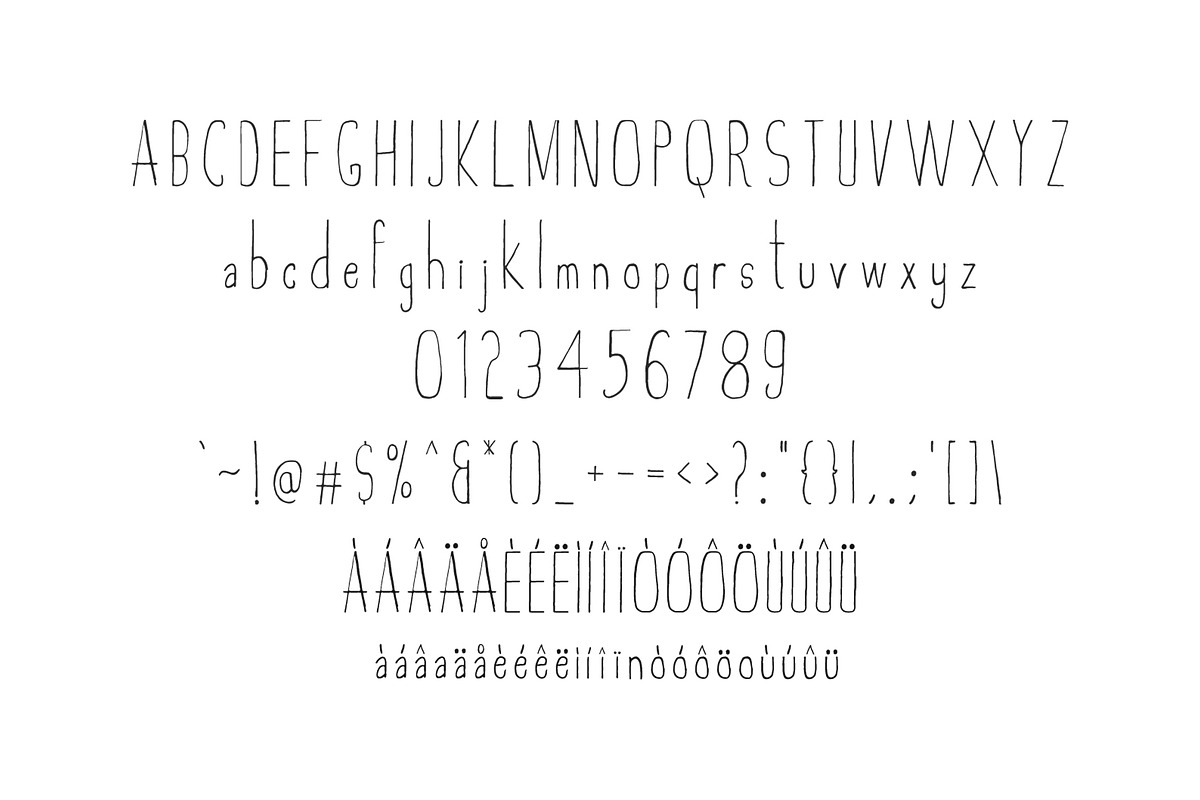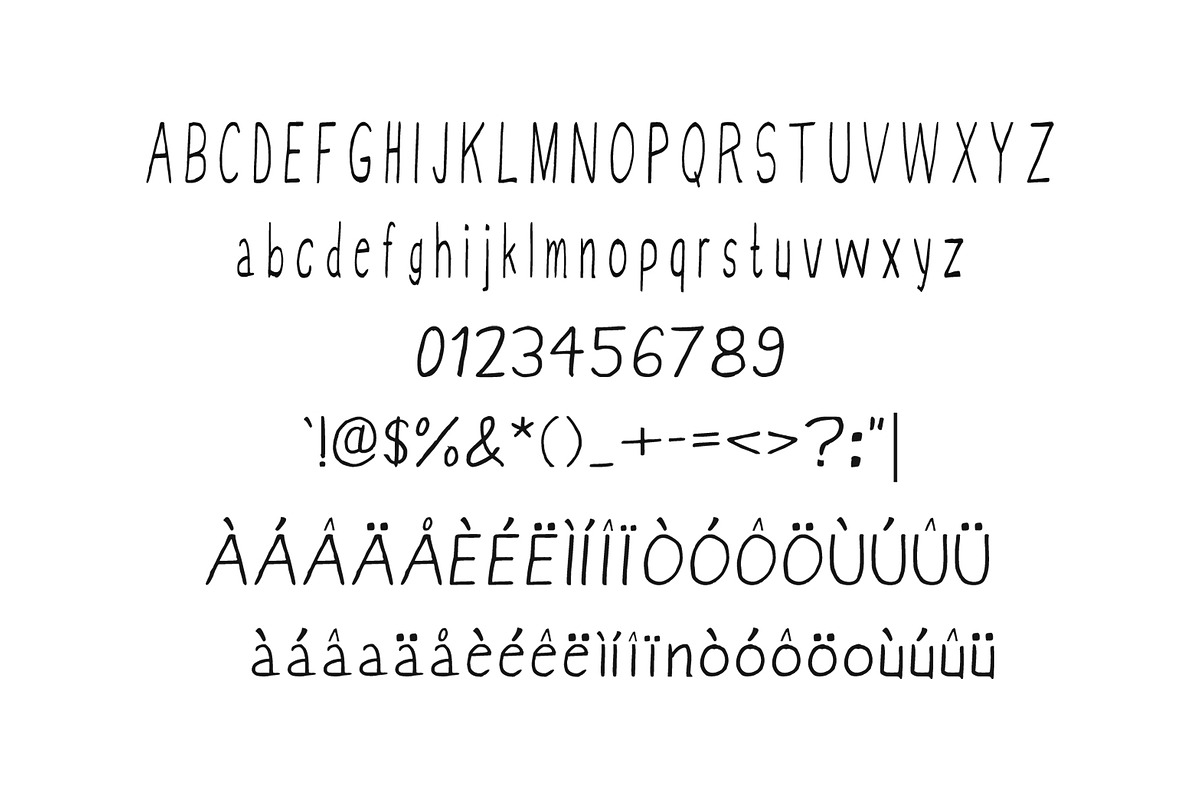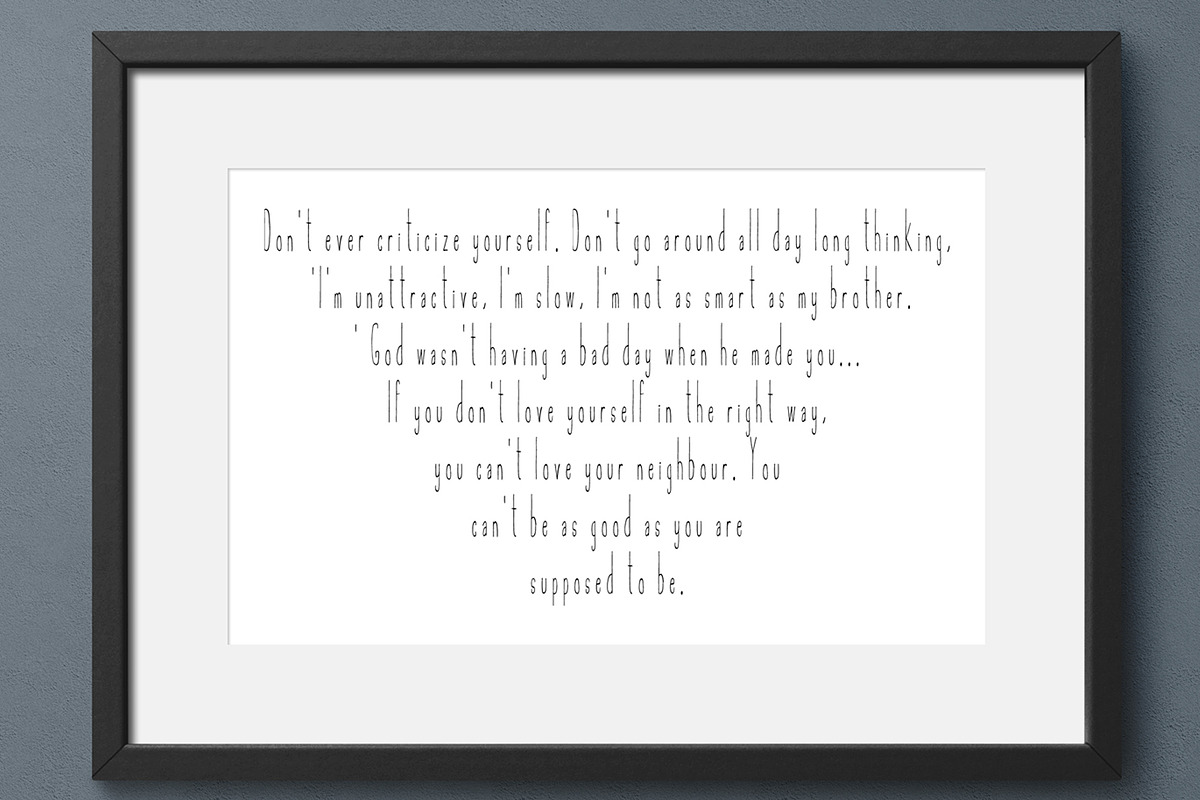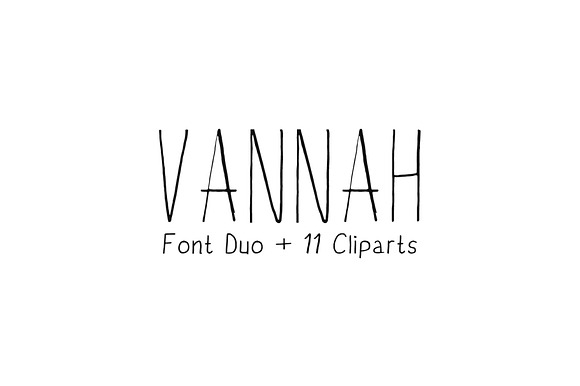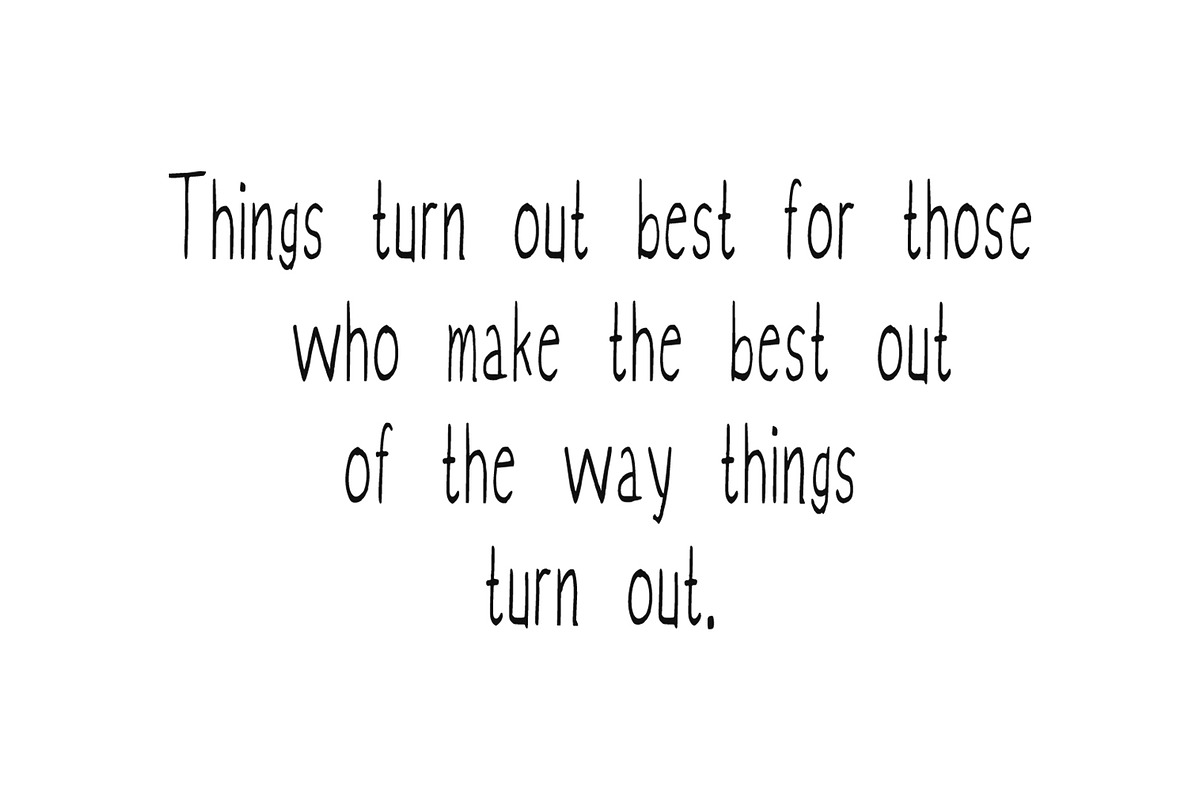
Vannah Font Duo + Bonus Clipart
Vannah Font Duo is a dual handmade script font containing upper & lowercase characters, numerals and a bunch of punctuation. These fonts look amazing in all caps with a wide-set spacing if you want to try a classy look, or beautiful on its own in capital and lowercase letters for something completely timeless. Ideal for designing handwritten quotes, branding & logo projects, merchandise, social media posts, displays, headers, invitations, save the dates, weddings, titles, product packaging, etc.
Non-English Characters